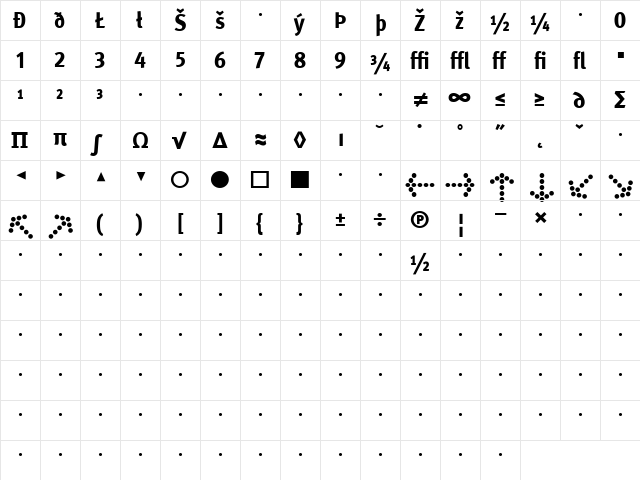
MetaCond ExtraBold Font Preview
Design Context for MetaCond Typeface
MetaCond takes a measured approach to typography — its balanced proportions and neutral character make it a reliable workhorse for both digital and print work. The heavy weight commands attention and anchors typographic hierarchies. Its narrow stance lets it pack a punch even in space-constrained designs.